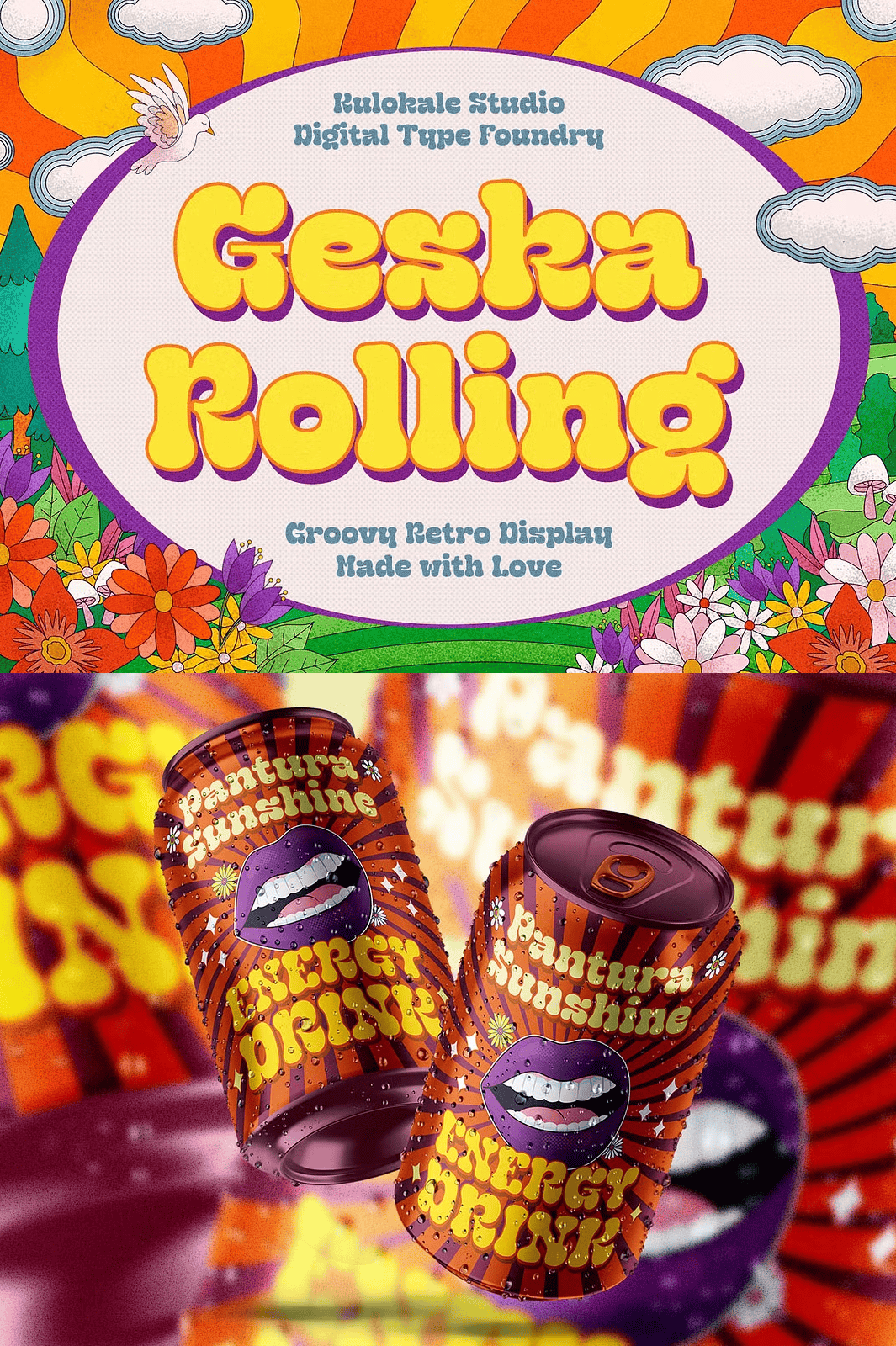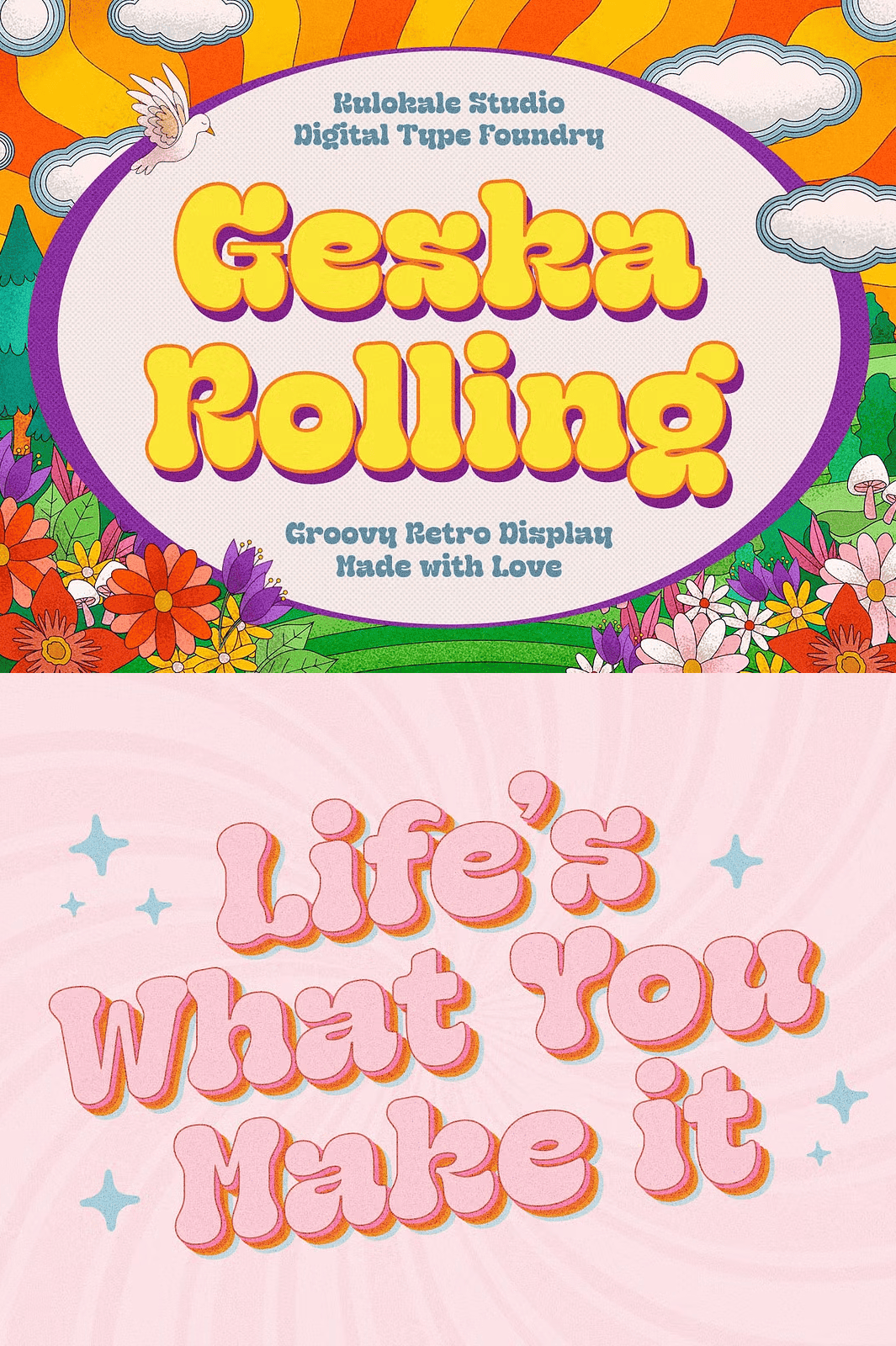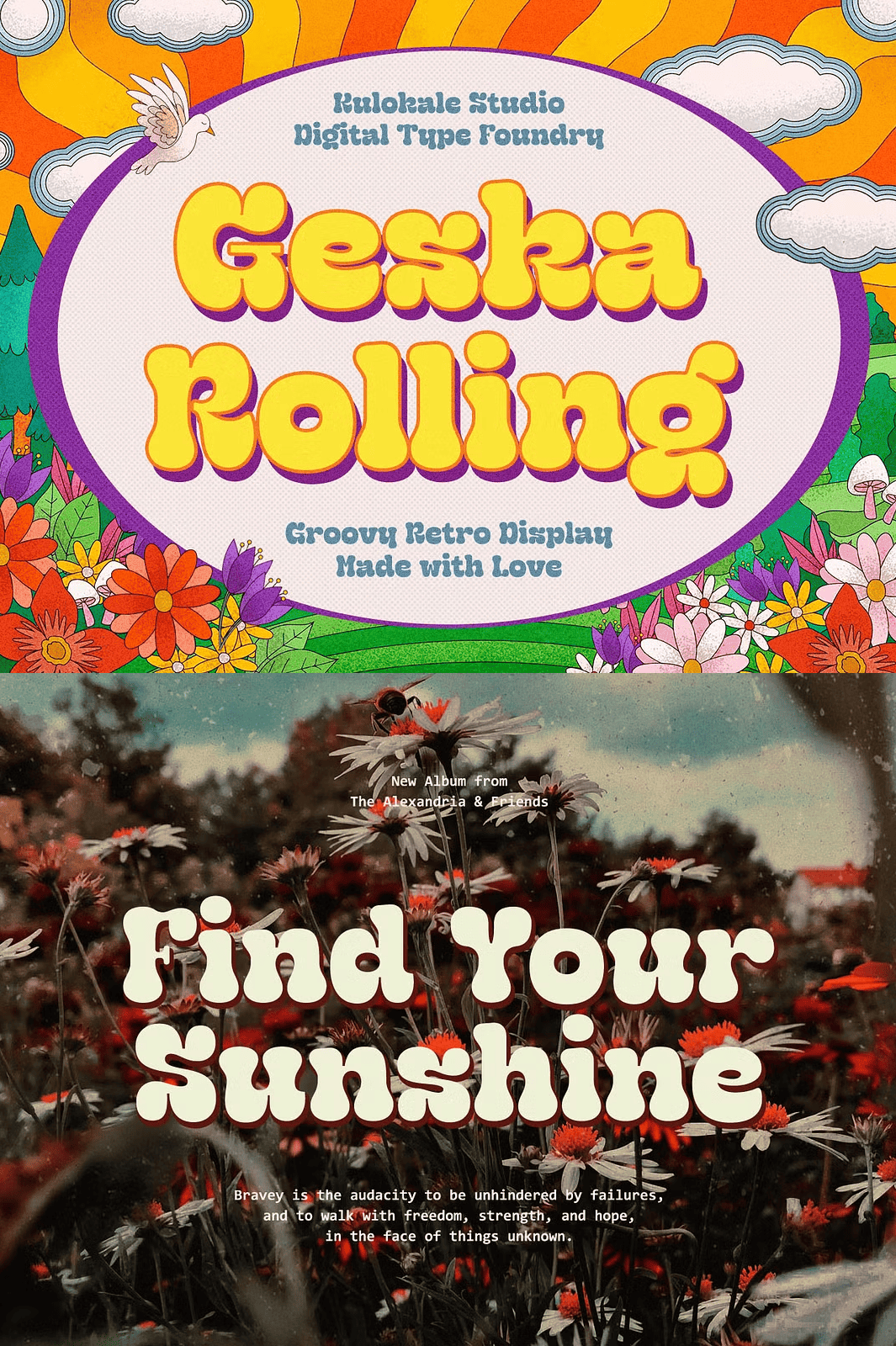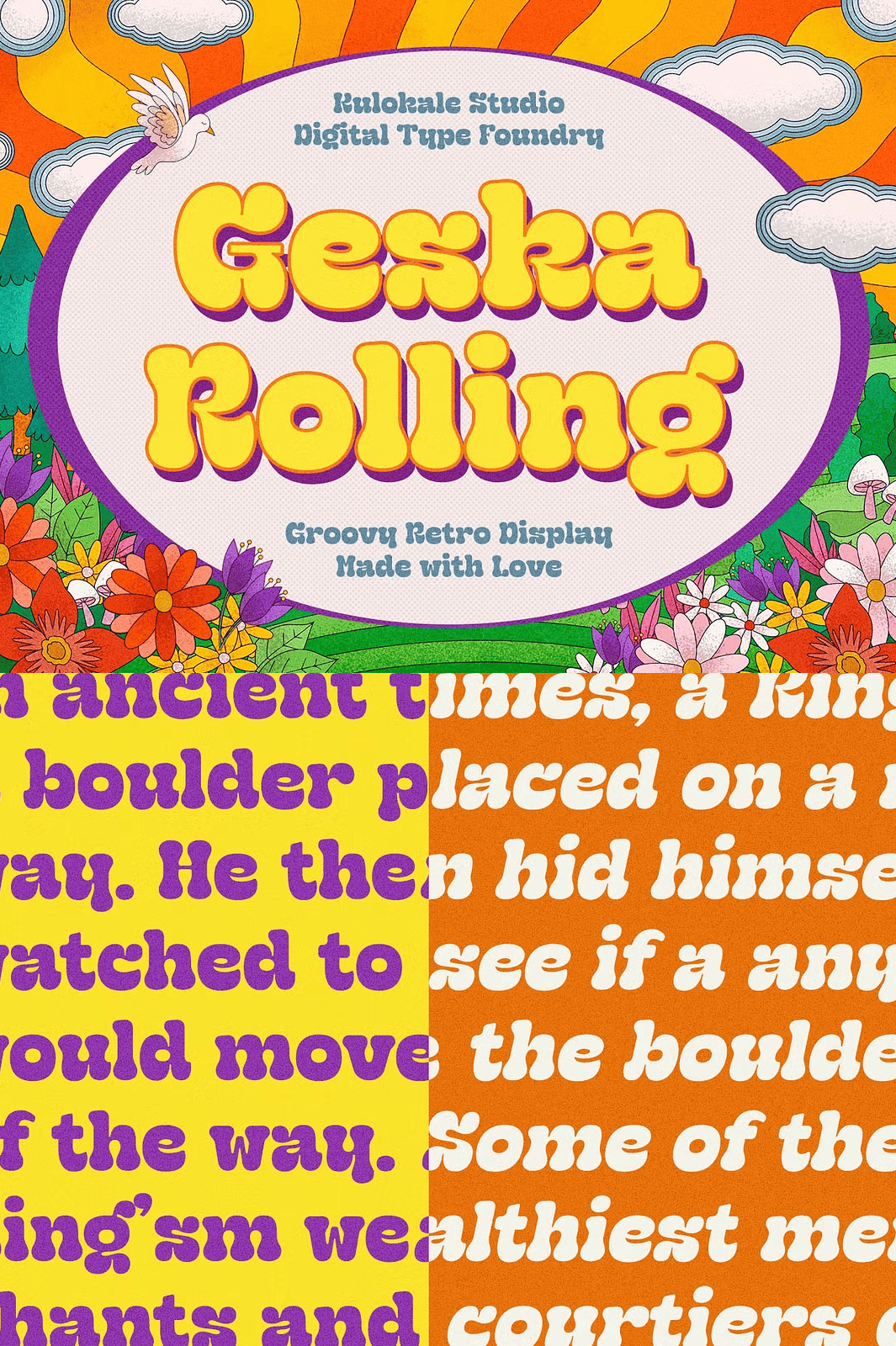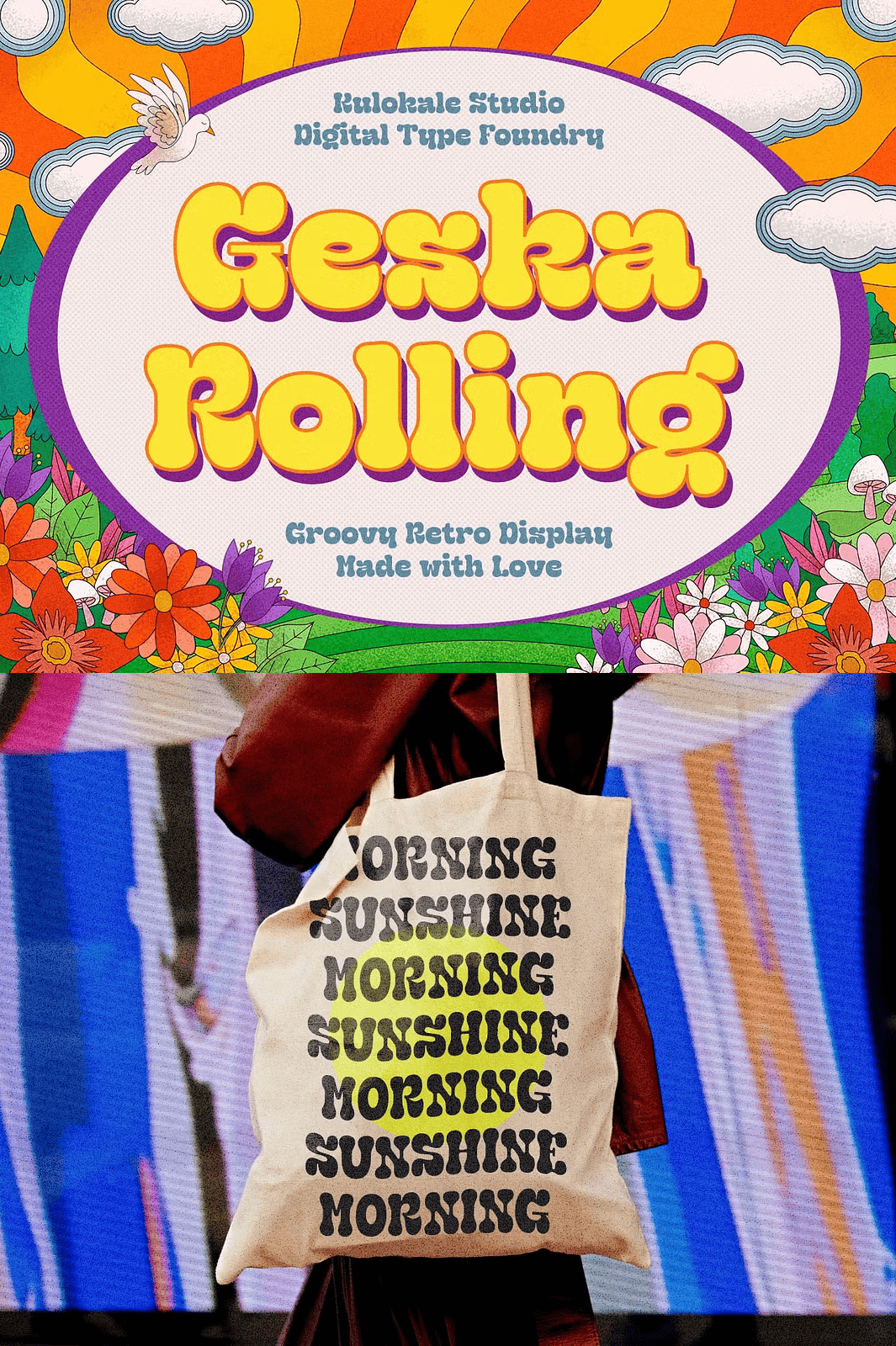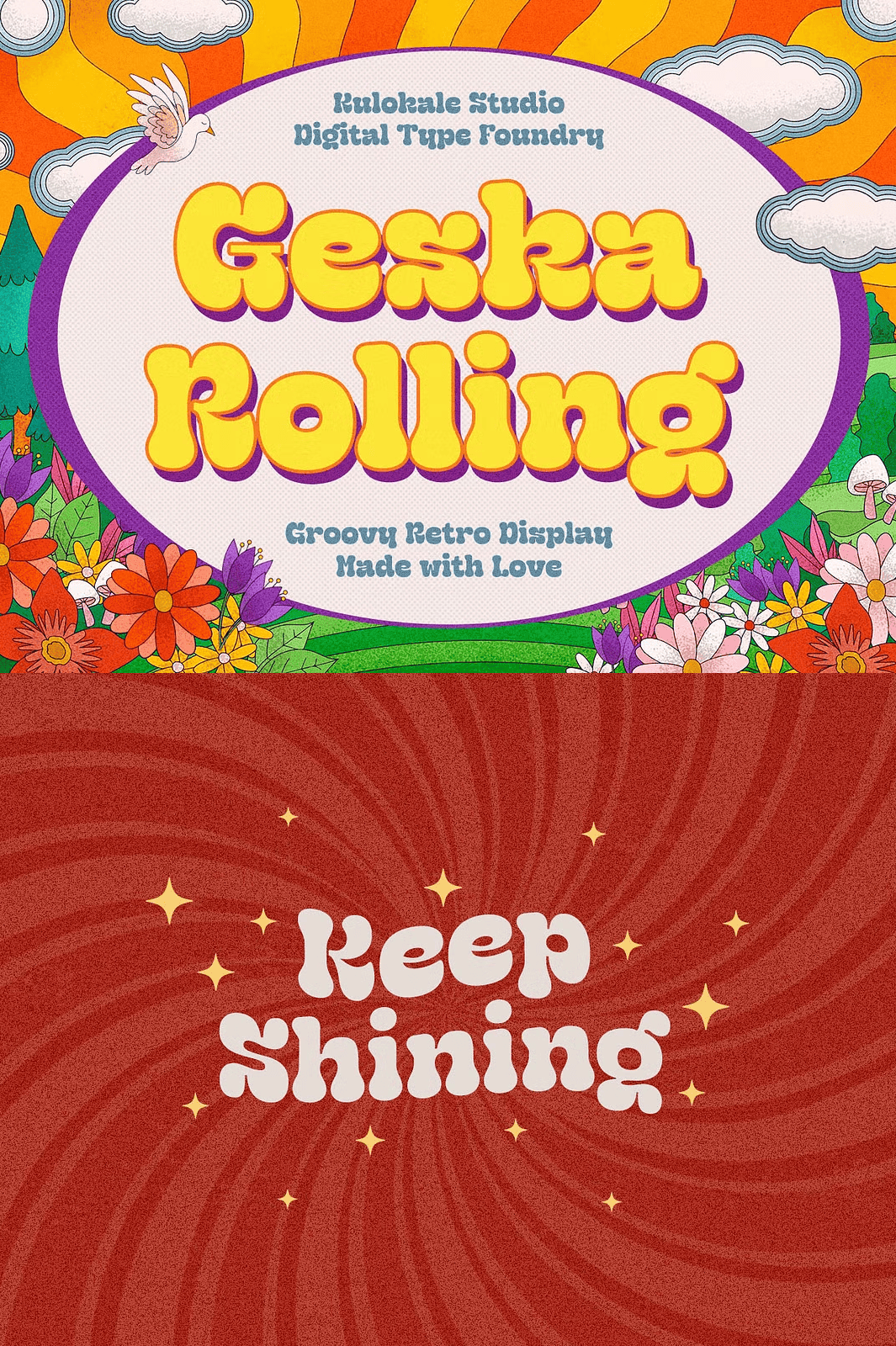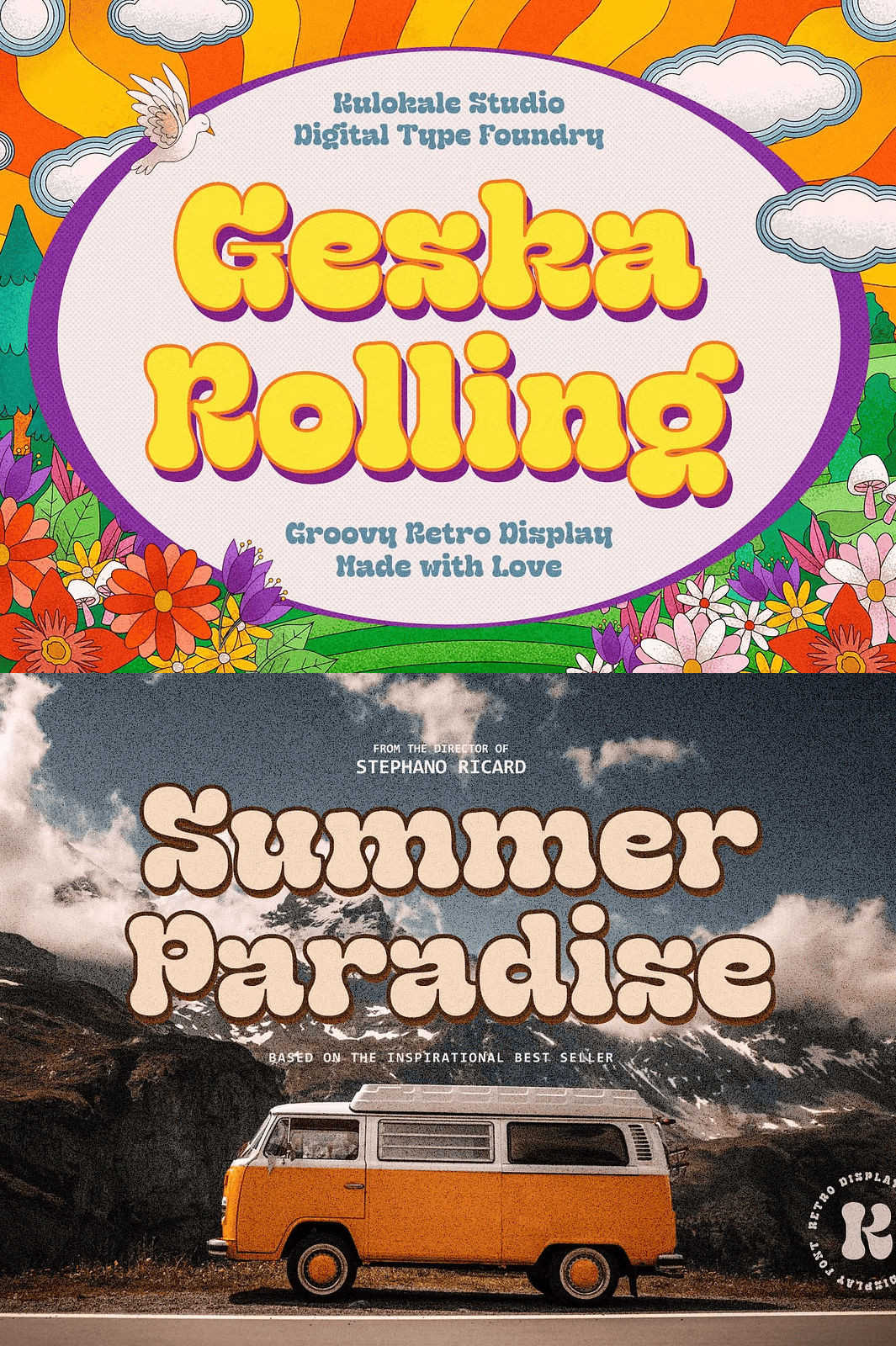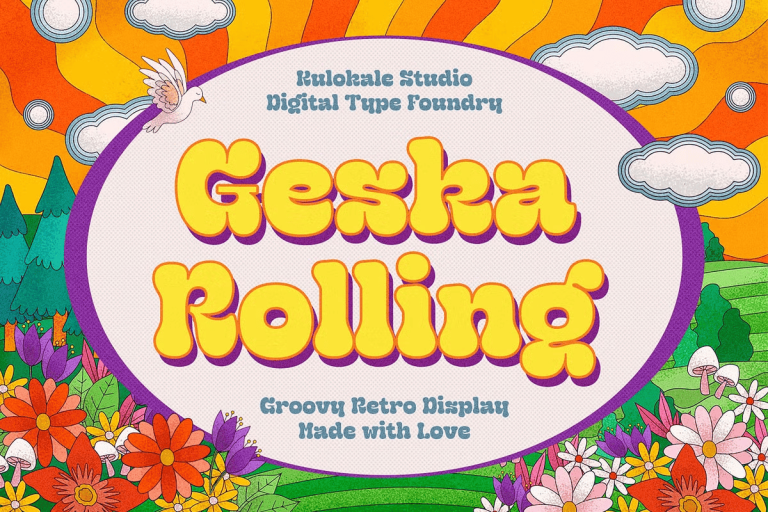
Unlock the rhythm of the past with Geska Rolling—a bold, energetic, and playful retro display font that brings the spirit of 1960s and 1970s pop culture to modern design. Whether you’re building a brand identity, packaging a product, or crafting a poster that demands attention, Geska Rolling delivers a dynamic, high-vibe aesthetic that turns heads and stirs memories.
Two Distinct Styles for Maximum Creative Flexibility
Geska Rolling launches with two powerful font variations:
- Geska Rolling Regular – The classic, smooth, and balanced version that shines in clean headlines, titles, and branding
- Geska Rolling Oblique – A slightly slanted, dynamic twist that adds motion and movement to your layout, ideal for bold graphics and editorial art direction
Each style is meticulously crafted with unique stroke contrast, rounded terminals, and playful character spacing. Together, they offer a rich palette of visual rhythm and energy, giving you complete control over your design’s mood and movement.
Where Retro Meets Modern: High-Impact Use Cases
Geska Rolling is engineered for design moments that demand personality and flair. Use it to:
- Design eye-catching brand identities for cafes, boutiques, music labels, or lifestyle products
- Create vibrant packaging that stands out on shelves with nostalgic charm
- Build compelling headlines and titles for magazines, posters, album covers, and event flyers
- Enhance digital content with bold social media posts, Instagram stories, YouTube thumbnails, and website banners
- Revitalize editorial layouts with vintage-inspired text treatments that command attention
- Bring retro energy to games, apps, or theme-based campaigns with authentic vintage typography
This isn’t just a font—it’s a cultural vibe. Let it carry your message with attitude, fun, and timeless groove.
Own the Soundwave of Retro Design
Your next project deserves a font with soul. Geska Rolling isn’t just about letters—it’s about rhythm, movement, and nostalgia. It’s the voice of the underground, the soundtrack of the past, and the spark of modern creativity.